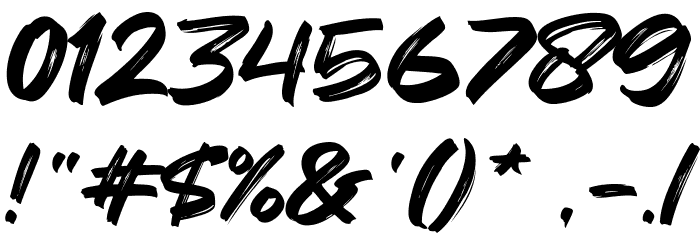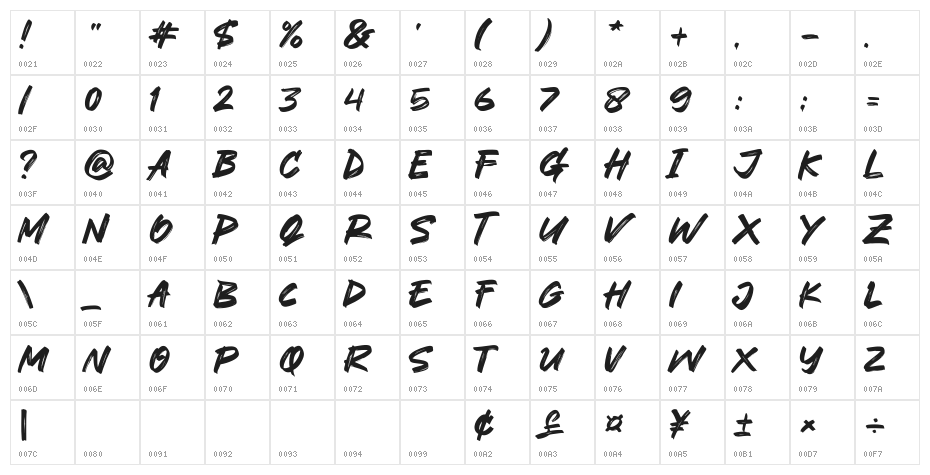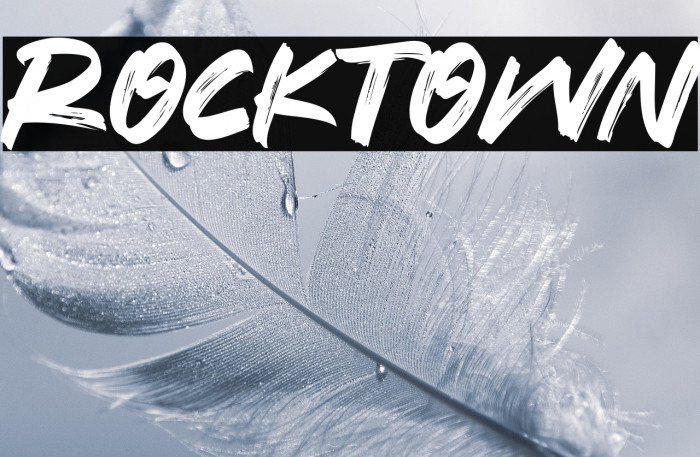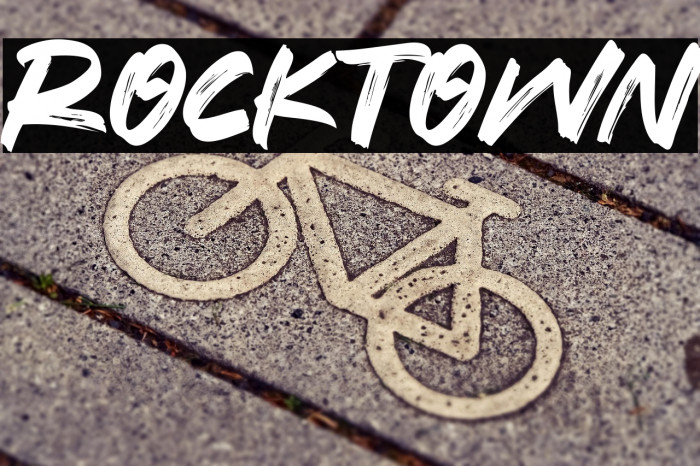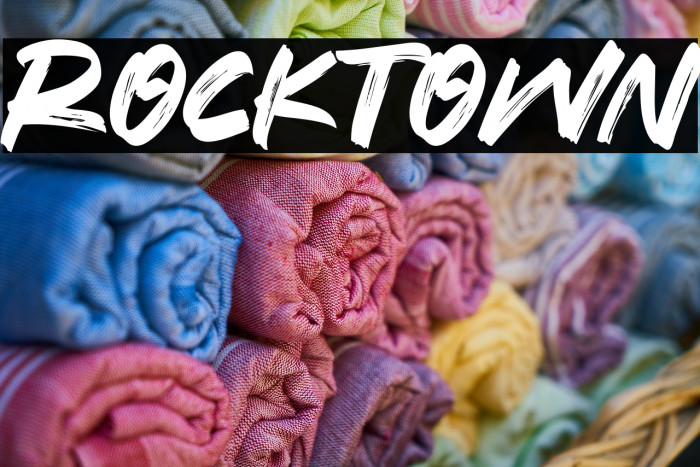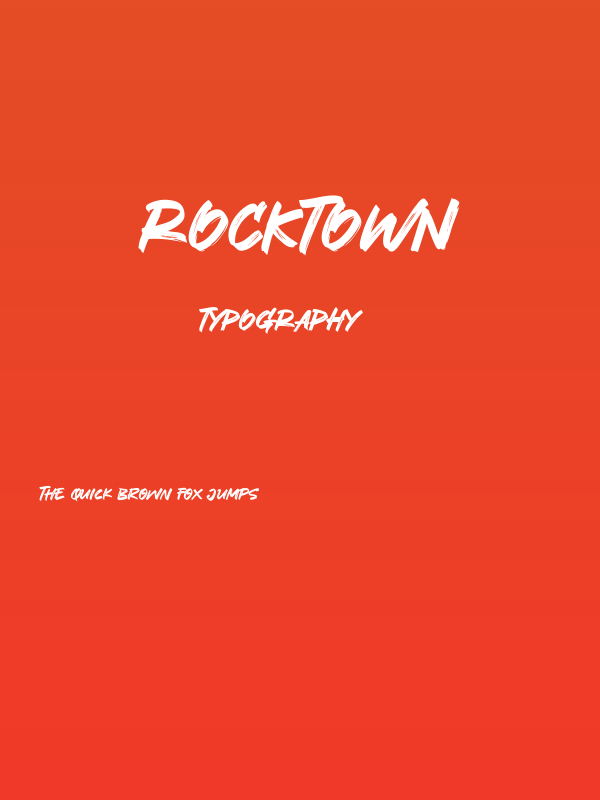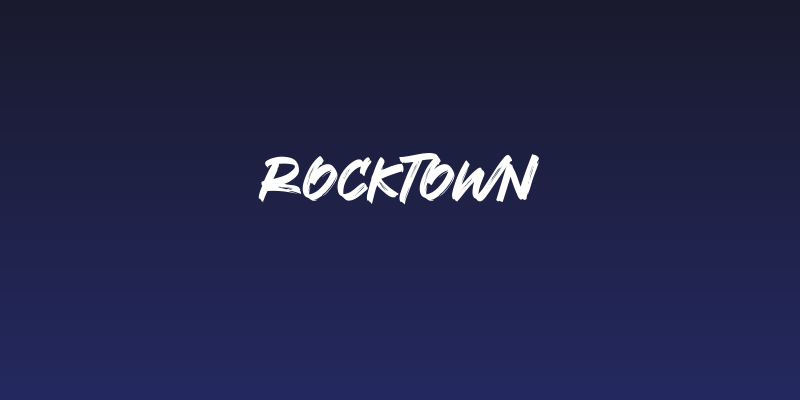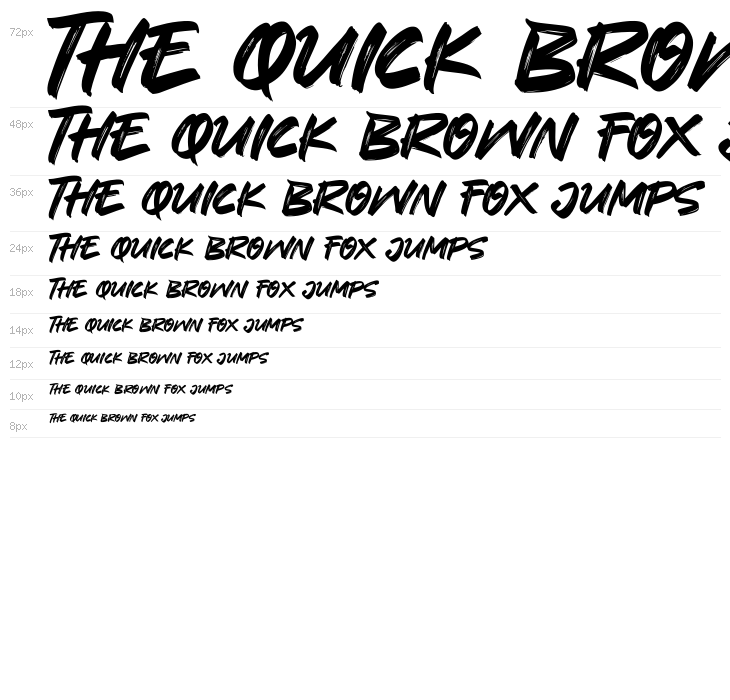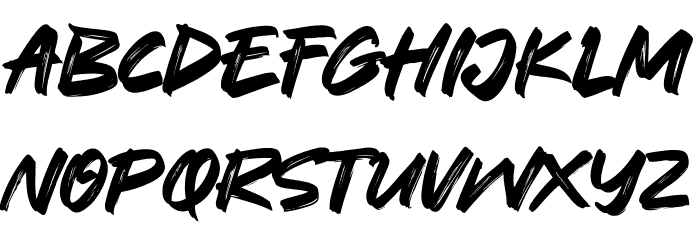
Rocktown Font
Rocktown Description
This font exudes a bold and energetic style with its brush-like strokes and dynamic appearance. The characters are crafted with a sense of motion, giving them a lively and expressive feel. The uppercase and lowercase letters maintain a consistent style, with thick, uneven strokes that suggest a hand-painted effect. The numbers and special characters follow the same aesthetic, ensuring a cohesive look across all elements. This font's unique style makes it stand out, capturing attention with its artistic flair.
| Overall Style | Modern, Artistic |
| Proposed Projects | Ideal for projects that require a strong visual impact, such as posters, branding, and packaging design. It can also be used for artistic projects, event invitations, and social media graphics. |